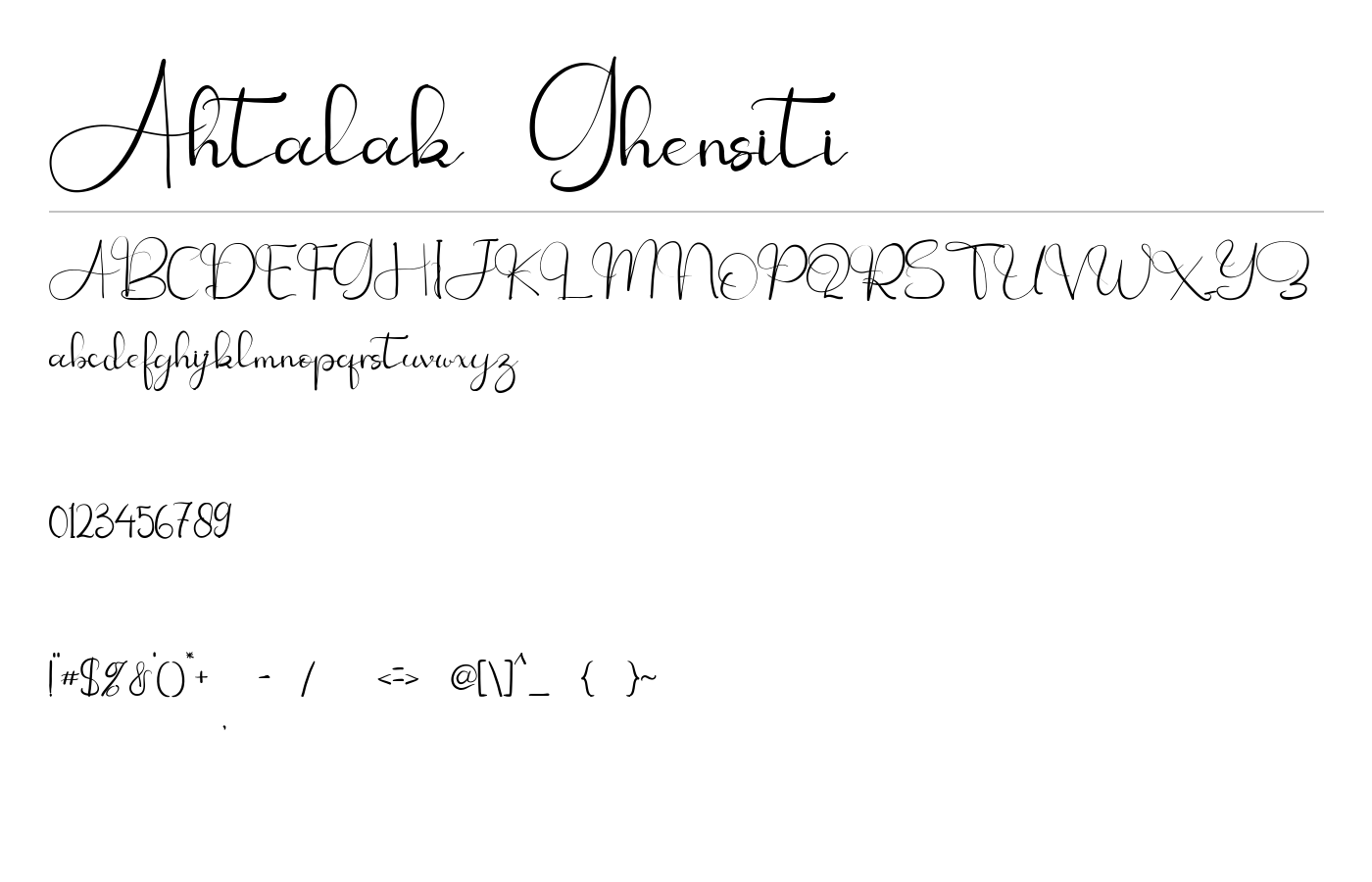
Ahtalak Ghensiti is a delicate, handwritten script font featuring thin, graceful strokes with elegant loops and swashes, giving it a refined and artistic flair. Perfect for creative branding, invitations, and decorative headlines, it conveys a sense of sophistication and personal touch while maintaining readability in its slender letterforms. This font works beautifully where a light, airy, and stylish look is desired.
Ahtalak Ghensiti Font